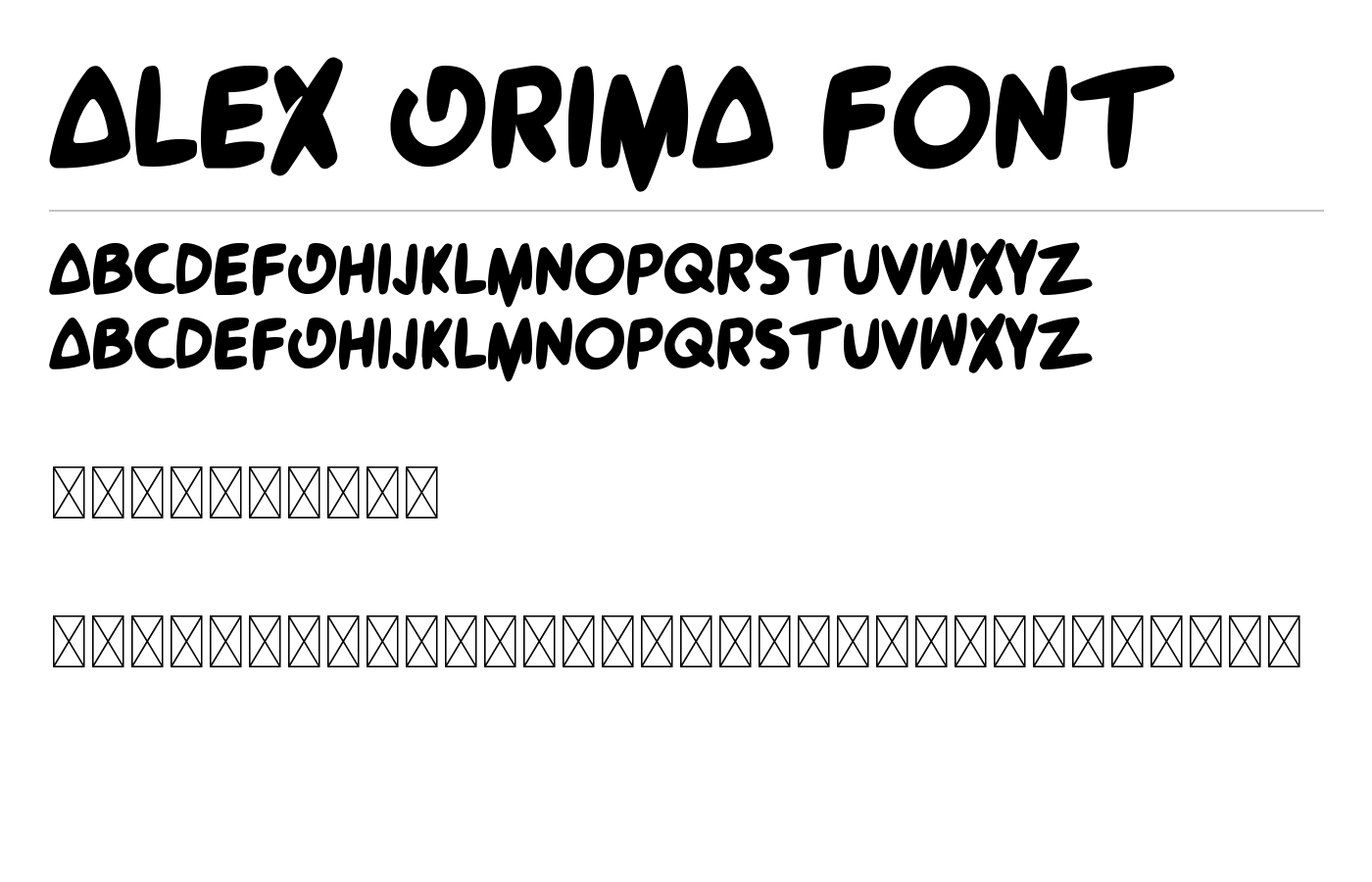
Alex Grima is a lively and bold sans serif font with rounded, playful letterforms that convey a friendly and informal vibe. Its thick, consistent strokes and wide proportions make it highly legible and great for attention-grabbing headlines, logos, and casual branding. This font works especially well in creative, youthful, and approachable designs where a fun and energetic personality is desired.
Alex Grima Font
About Alex Grima Font